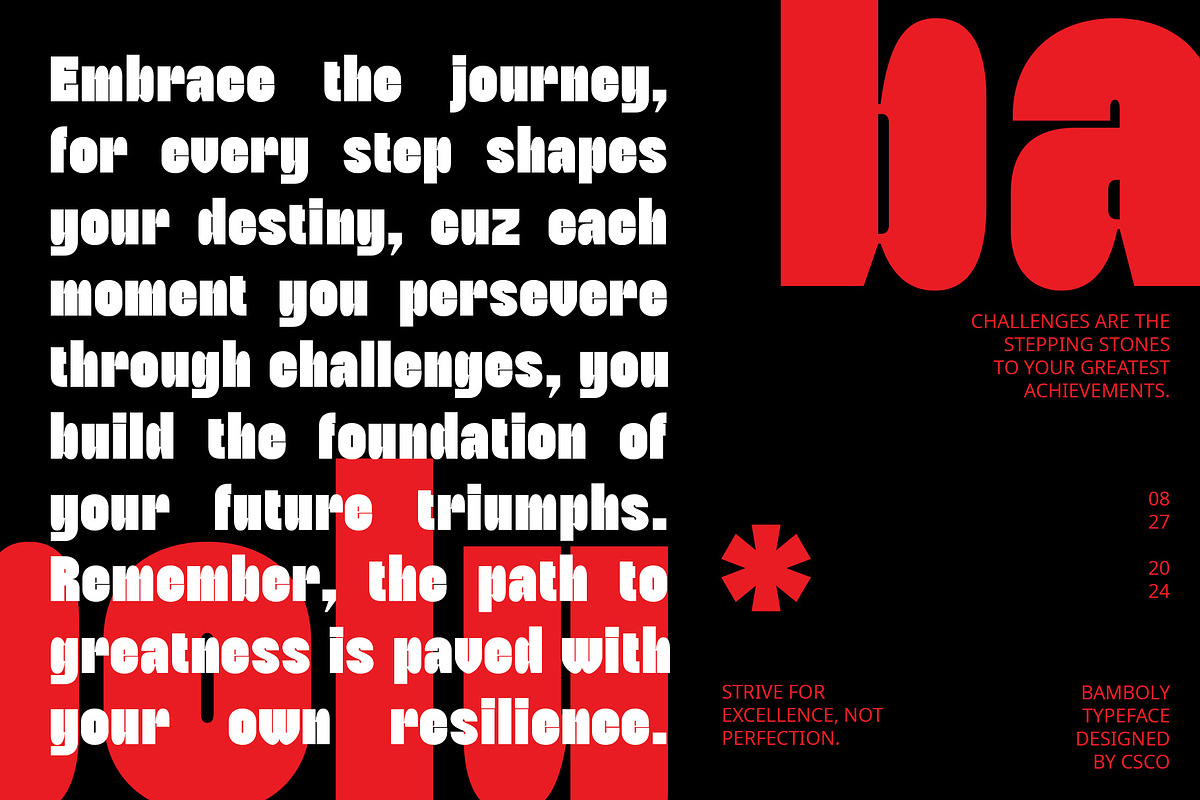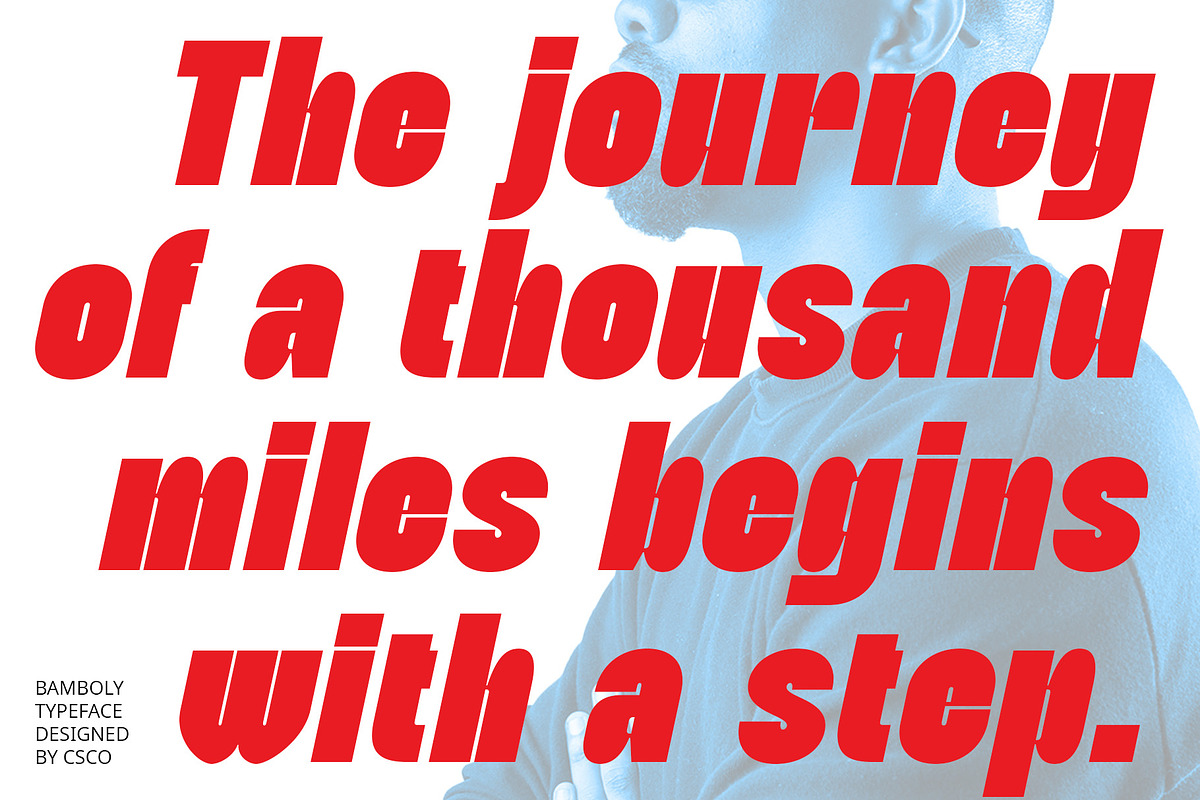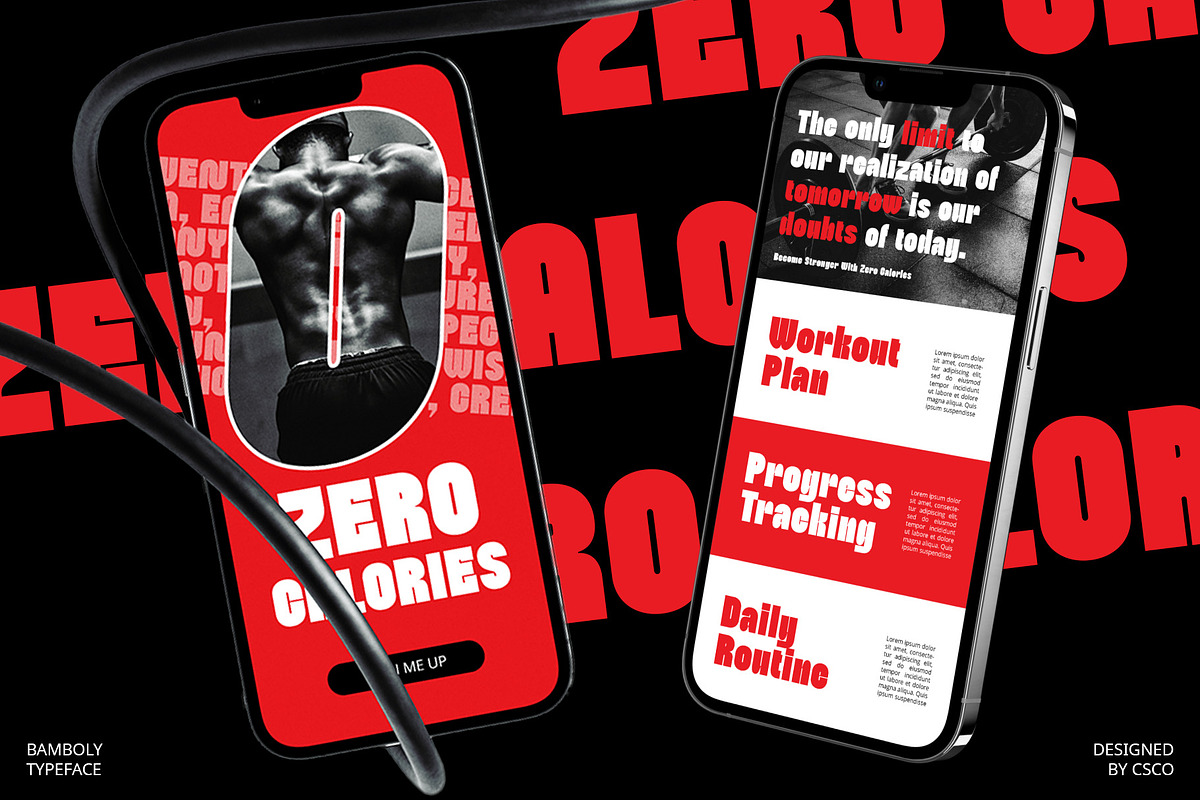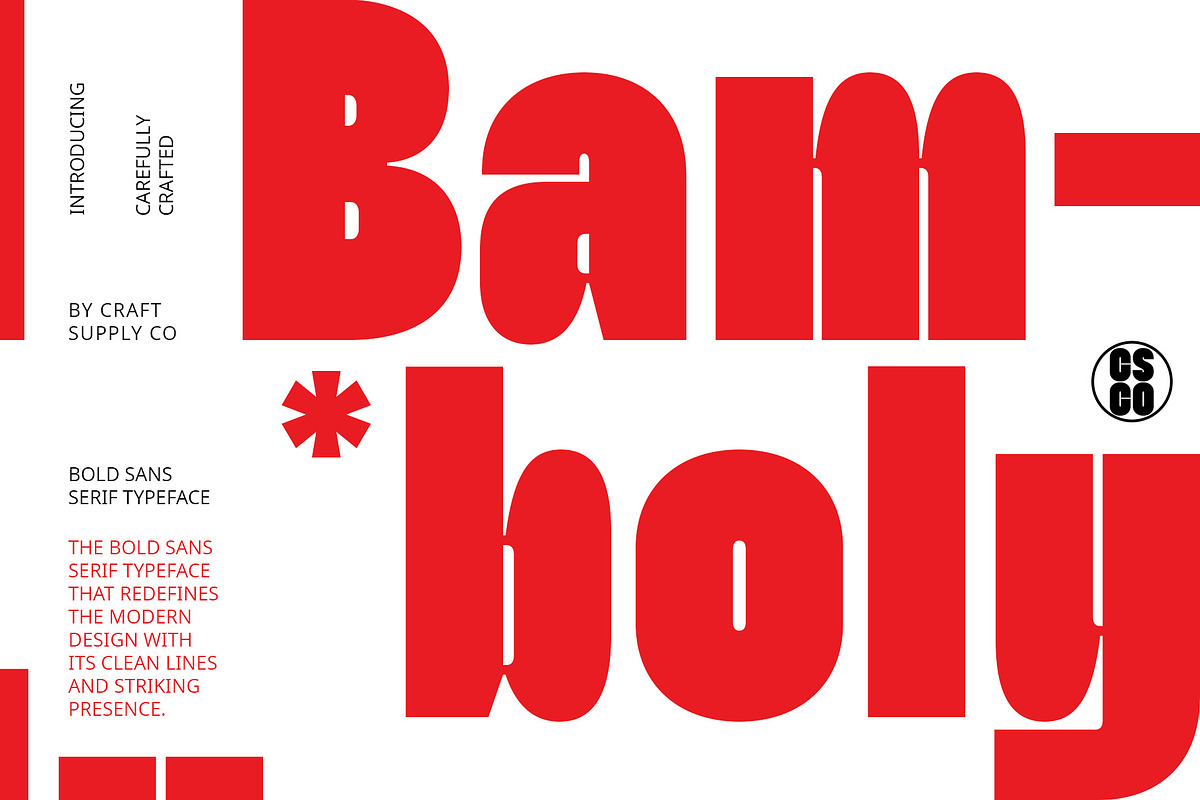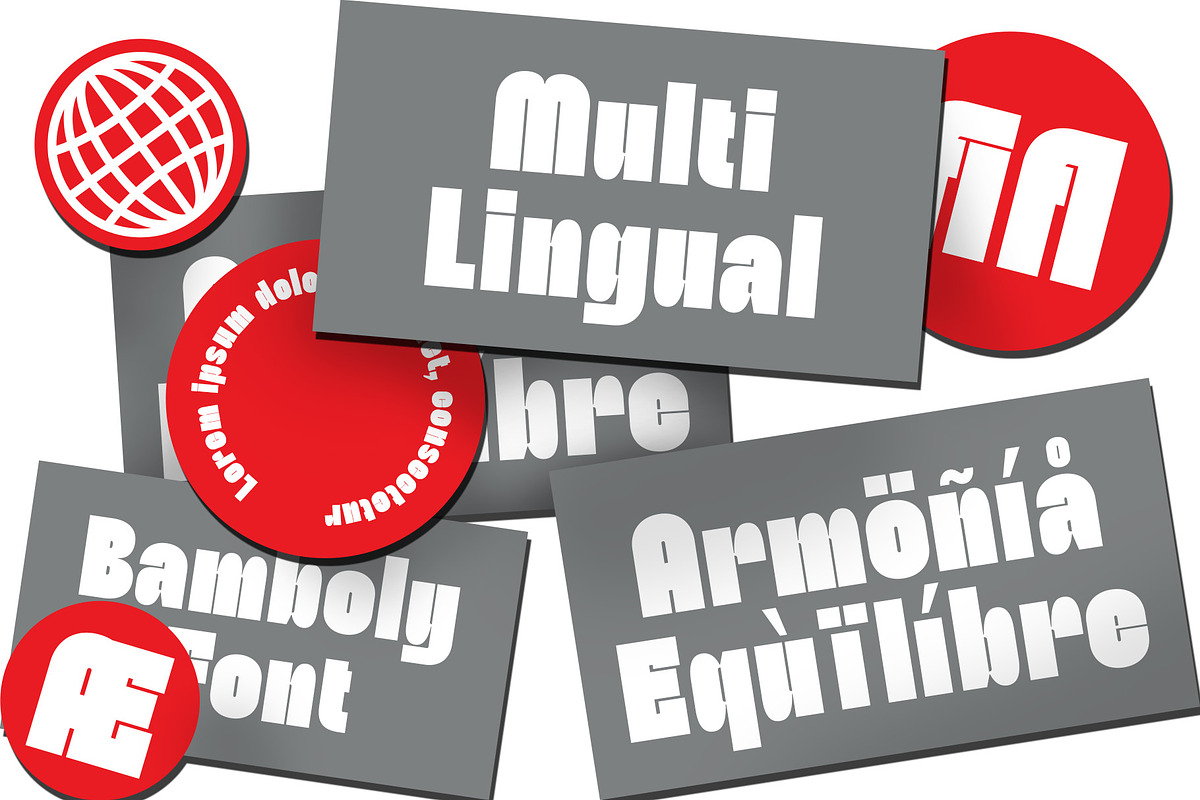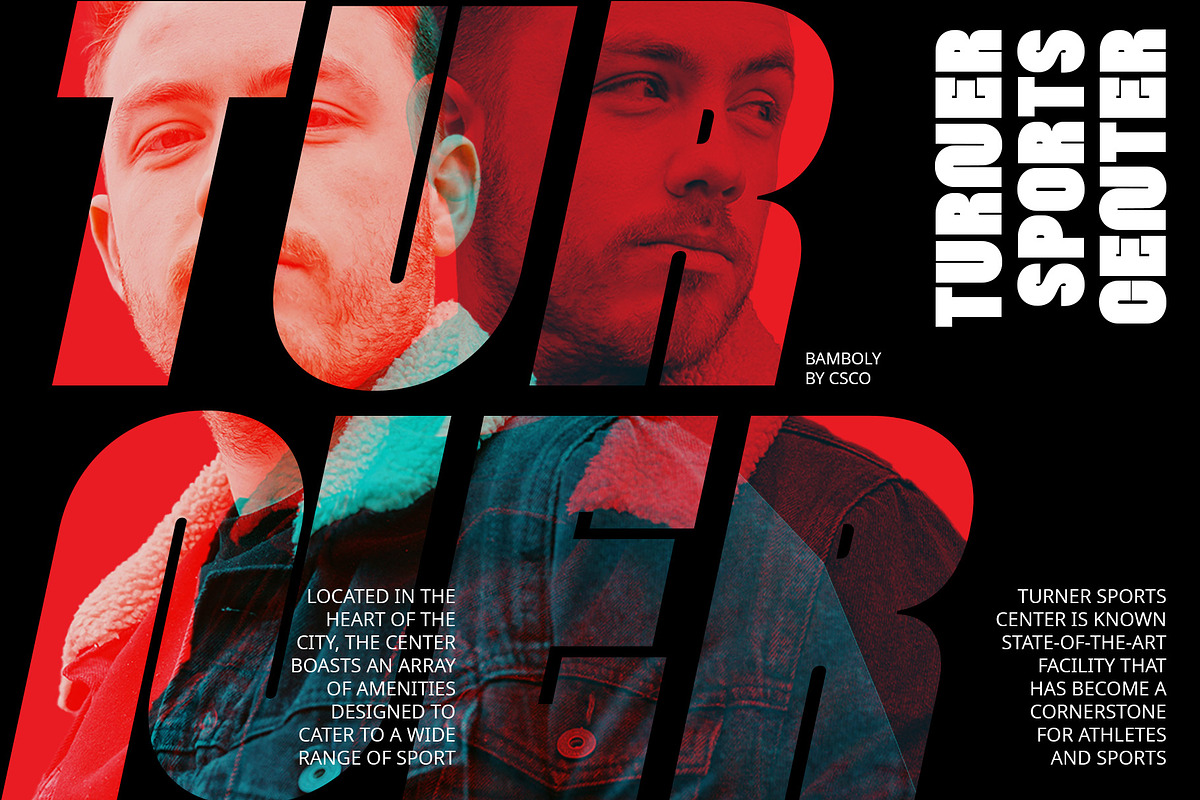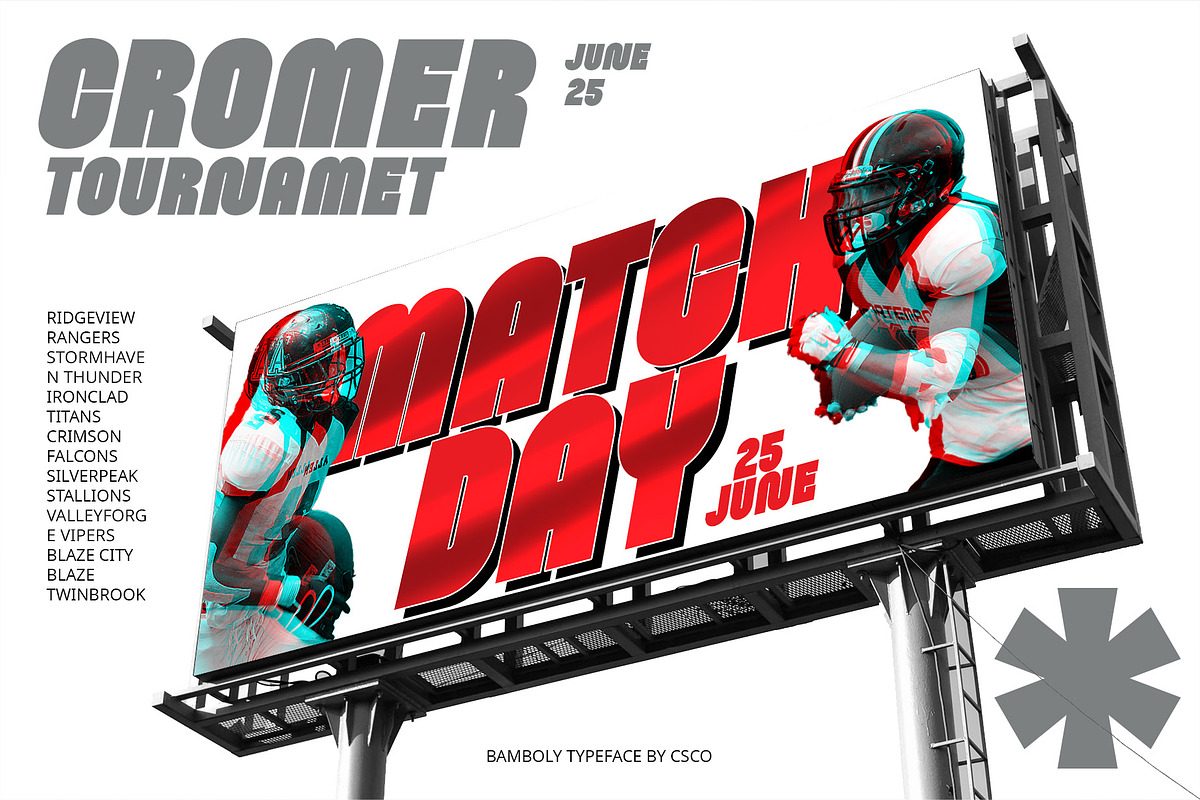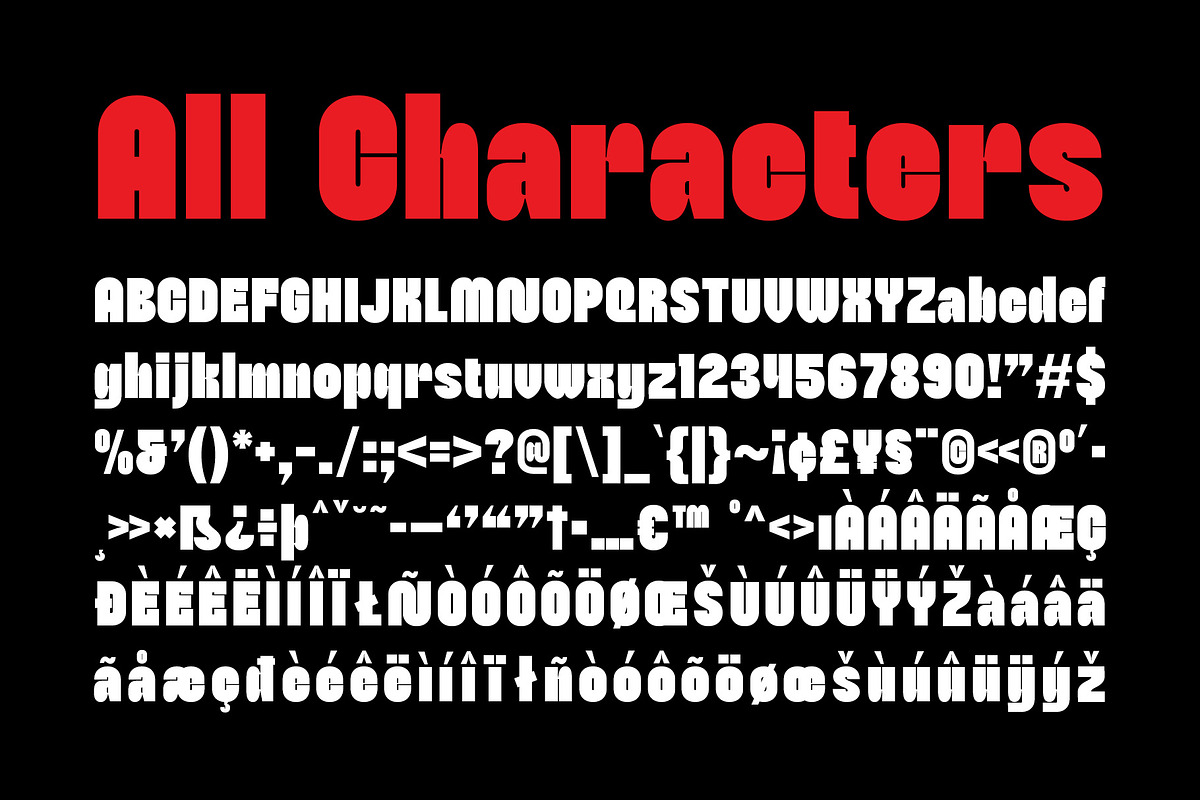
Bamboly – Bold Sans Serif
Bamboly – Bold Sans Serif: Where Boldness Meets Professionalism
Strong and Striking Design
Bamboly – Bold Sans Serif is a strong and striking font designed for professional use. Its bold weight commands attention, making it perfect for headlines, banners, and other prominent text elements.
Versatile and Impactful
With its versatile design, Bamboly Font is suitable for a variety of uses, including headlines, body text, and branding. Its bold style adds a sense of authority and impact to any project, ensuring that your message is conveyed with clarity and confidence.
Enhanced Readability
Bamboly Font prioritizes readability, ensuring that your message is clear and easy to understand. Whether used in print or digital media, this font maintains legibility even at small sizes.
Perfect for Professional Use
Whether you’re designing a poster, a website, or a logo, Bamboly Font is the perfect choice for projects that require a bold and professional aesthetic. Its timeless design ensures that your work will always look bold and impactful.